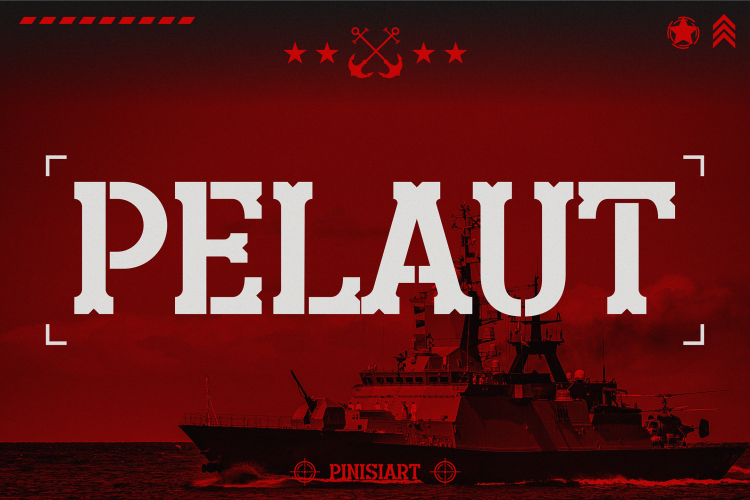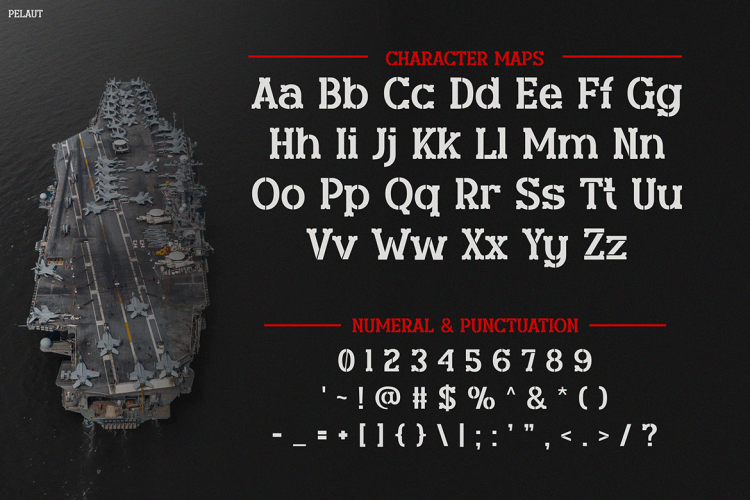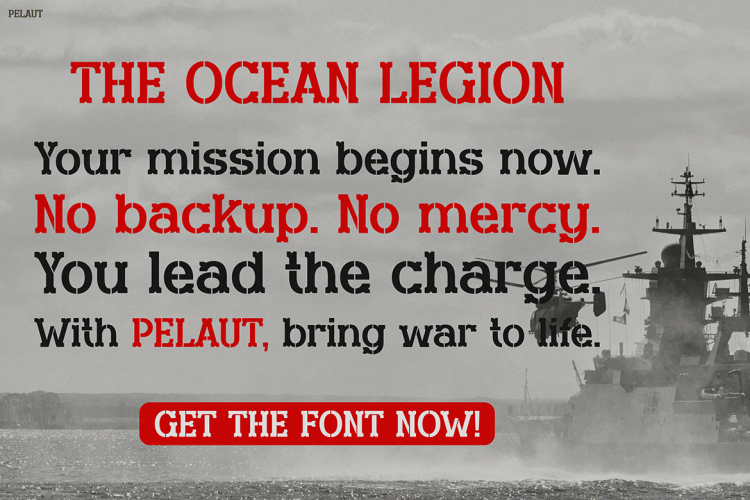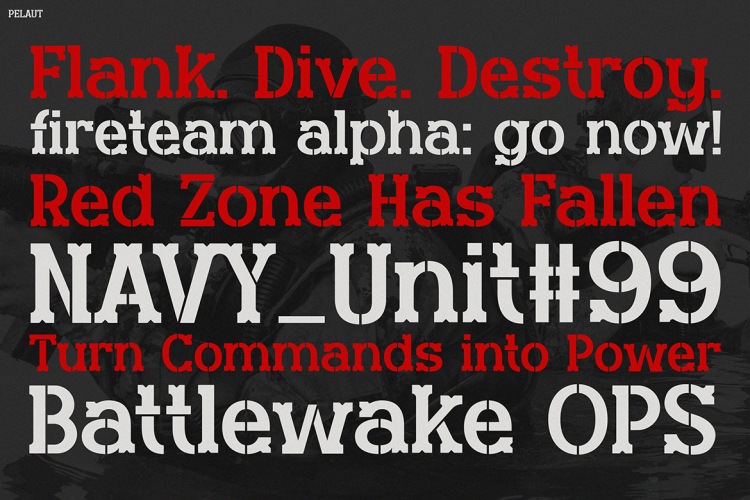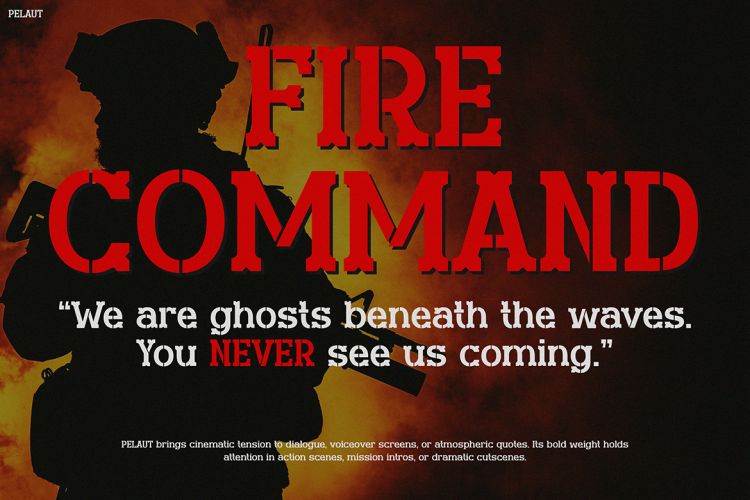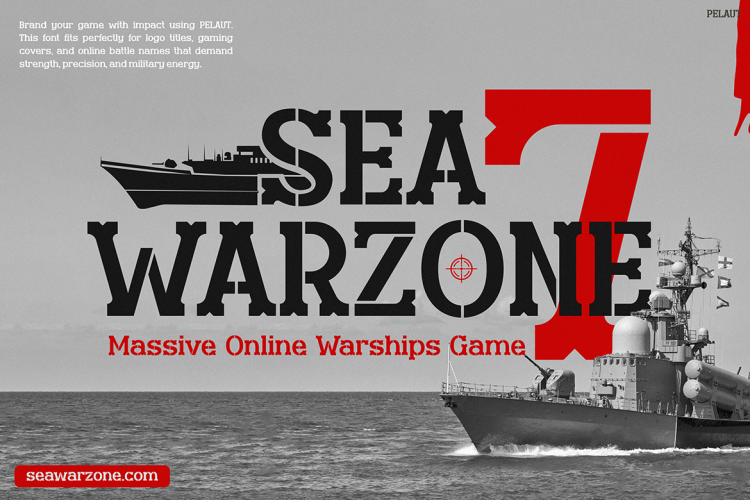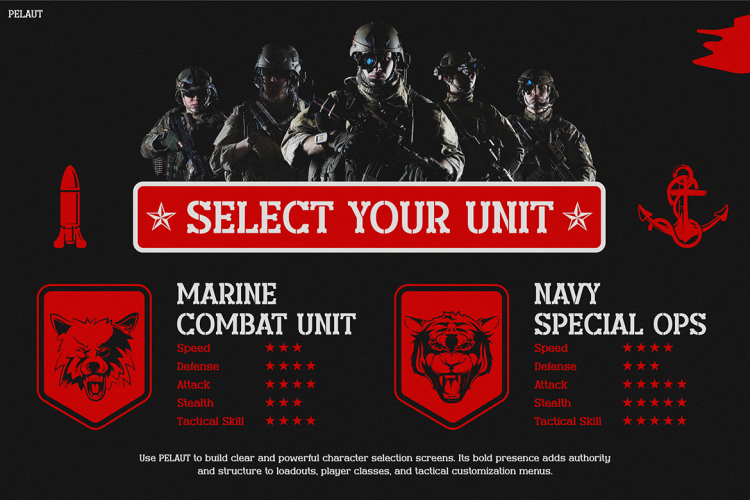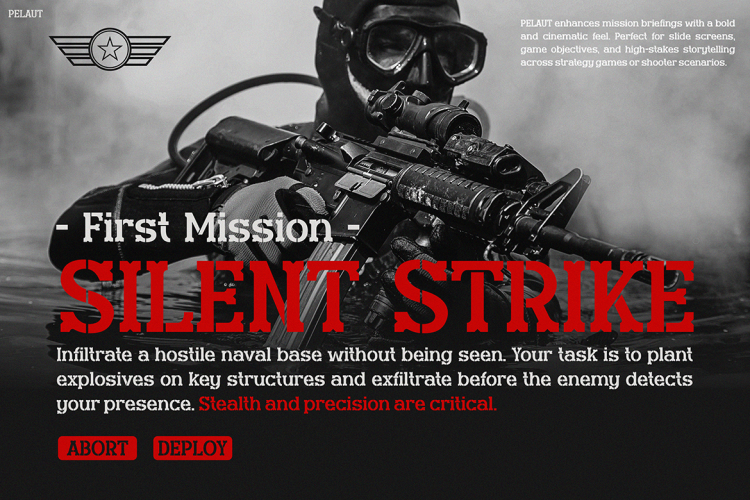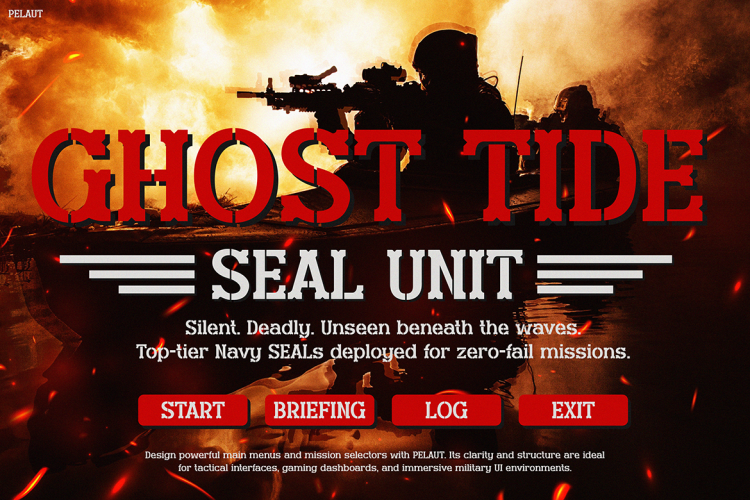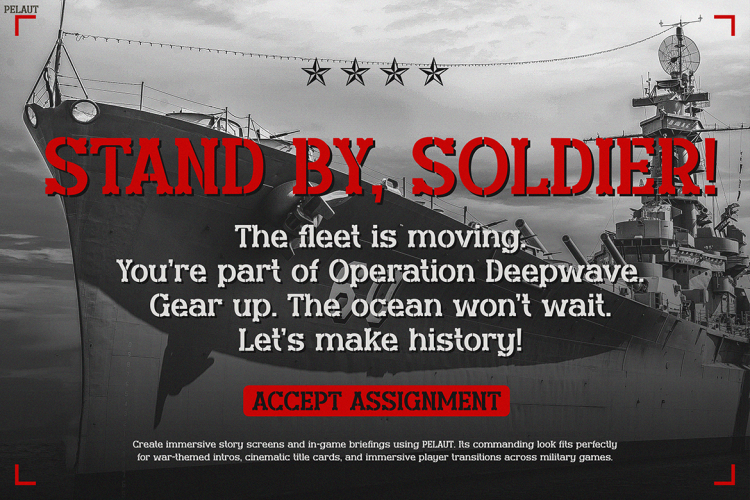
Gaming Font PELAUT captures attention instantly with its commanding presence, making it perfect for high-intensity gaming environments. This bold and rugged typeface combines geometric precision with military aesthetics, delivering a powerful visual punch that enhances any design. The strong, industrial-style characters feature stencil-like cuts and bold contours, ideal for war-themed games, mission briefings, and tactical UI interfaces. Every letter feels engineered for command, offering both style and readability in high-stakes visual storytelling.
Whether you’re launching a naval combat game like SEA WARZONE 7 or creating a stealth mission experience in SILENT STRIKE, PELAUT amplifies the mood and immerses players in your game’s narrative. It doesnโt just look goodโit brings cinematic weight and urgency to every screen. Use it in main menus, mission briefings, log screens, or promotional posters to instantly convey strategy, danger, and action.
Who Should Use This Gaming Font PELAUT
Gaming Font PELAUT serves game developers, UI designers, and branding specialists working on military, tactical, or shooter-themed projects. Indie developers can build immersive, gritty war games, while AAA studios can use it to boost visual storytelling with style and authority. Content creators will also benefitโuse PELAUT in YouTube thumbnails, Twitch graphics, and social media promotions to stand out in crowded feeds.
Designers creating movie intros, action-themed branding, or gear packaging will find PELAUT equally effective. Its sharp edges and bold silhouette work perfectly for any brand or message needing a dose of strength and discipline.
Final Thoughts
If your project demands strength, precision, and impact, Gaming Font PELAUT delivers it all. With its clean structure and military energy, this font helps you design with confidence and intensity. Donโt settle for generic fontsโequip your visuals with a typeface that feels mission-ready. Choose PELAUT, To lead your audience into a world of action and strategy and dominate your next creative campaign.